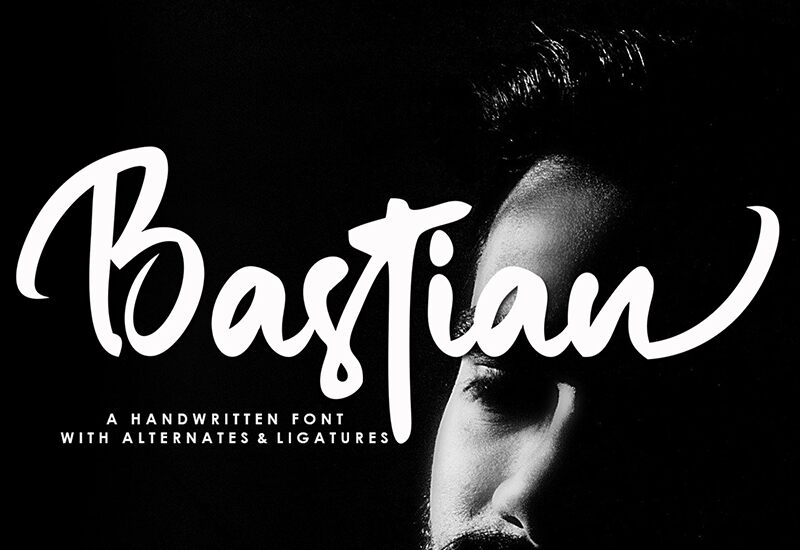
Bastian, the captivating creation by Akifatype Studio, is a remarkable handwritten font that exudes an irresistible marker-style charm. Its fluid strokes and playful personality make it perfect for projects seeking a touch of authenticity and creativity.
From trendy logo designs to eye-catching packaging, Bastian's semi-bold font and distinctive width effortlessly elevate any project, be it in print or digital form. Whether you're aiming to create captivating social media posts or designing inspiring quotes, Bastian is your go-to typeface for adding a unique and memorable touch to your work.